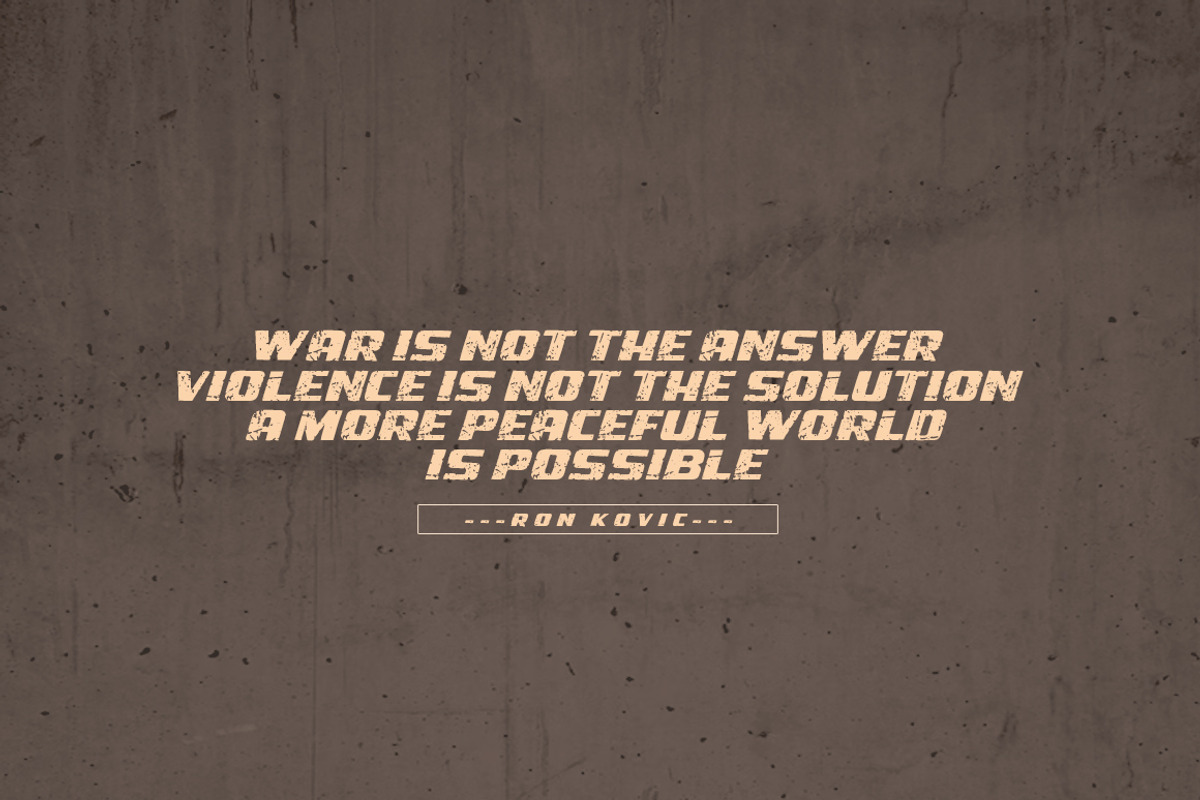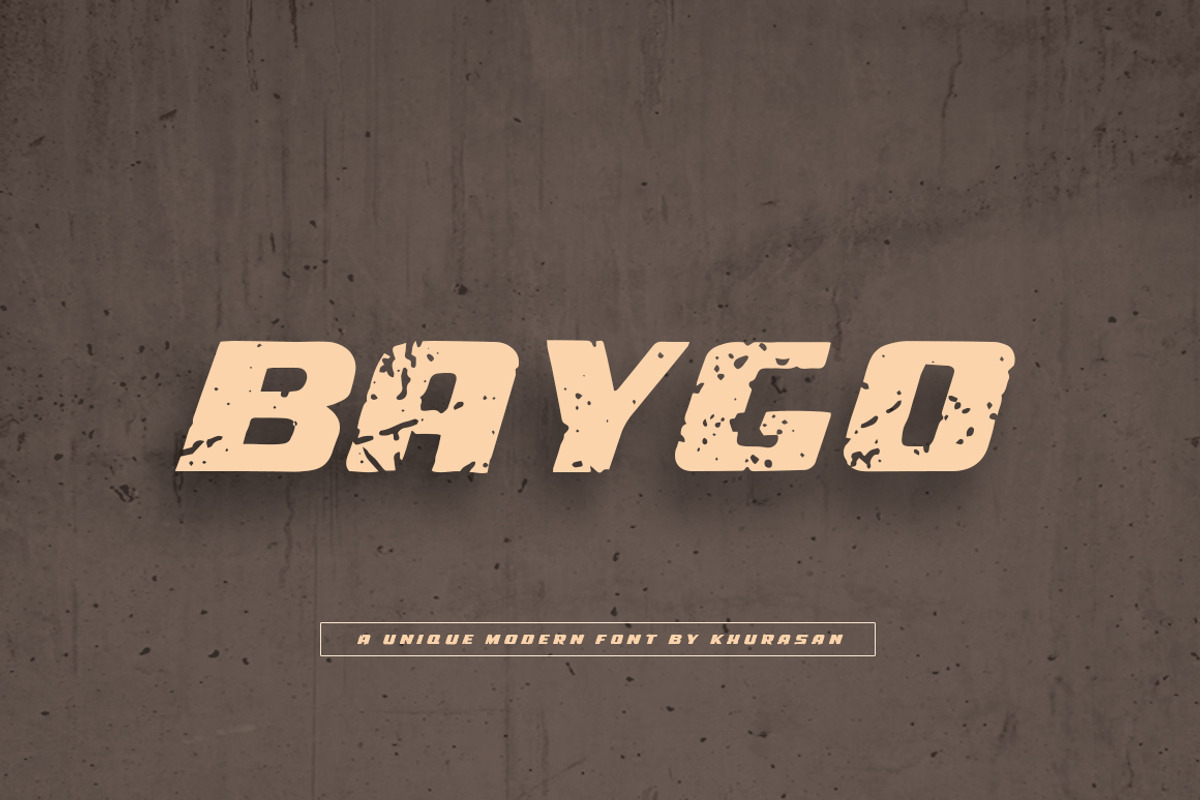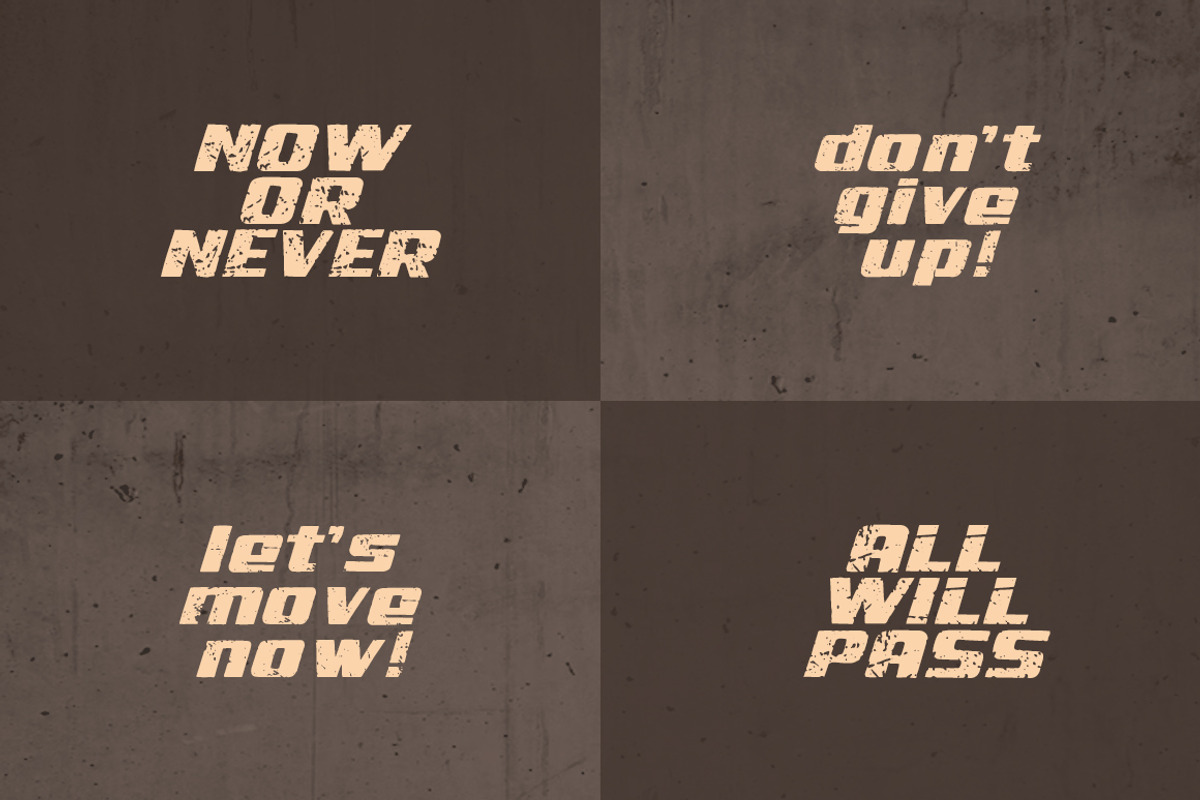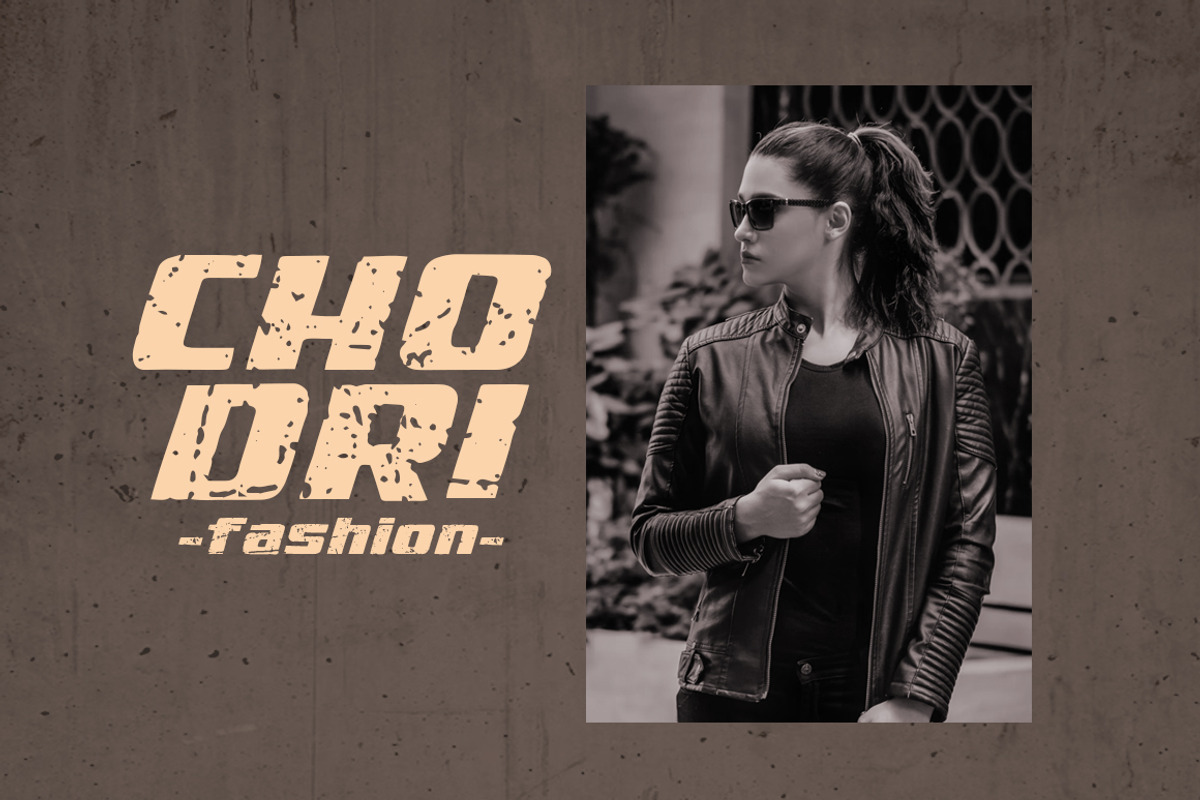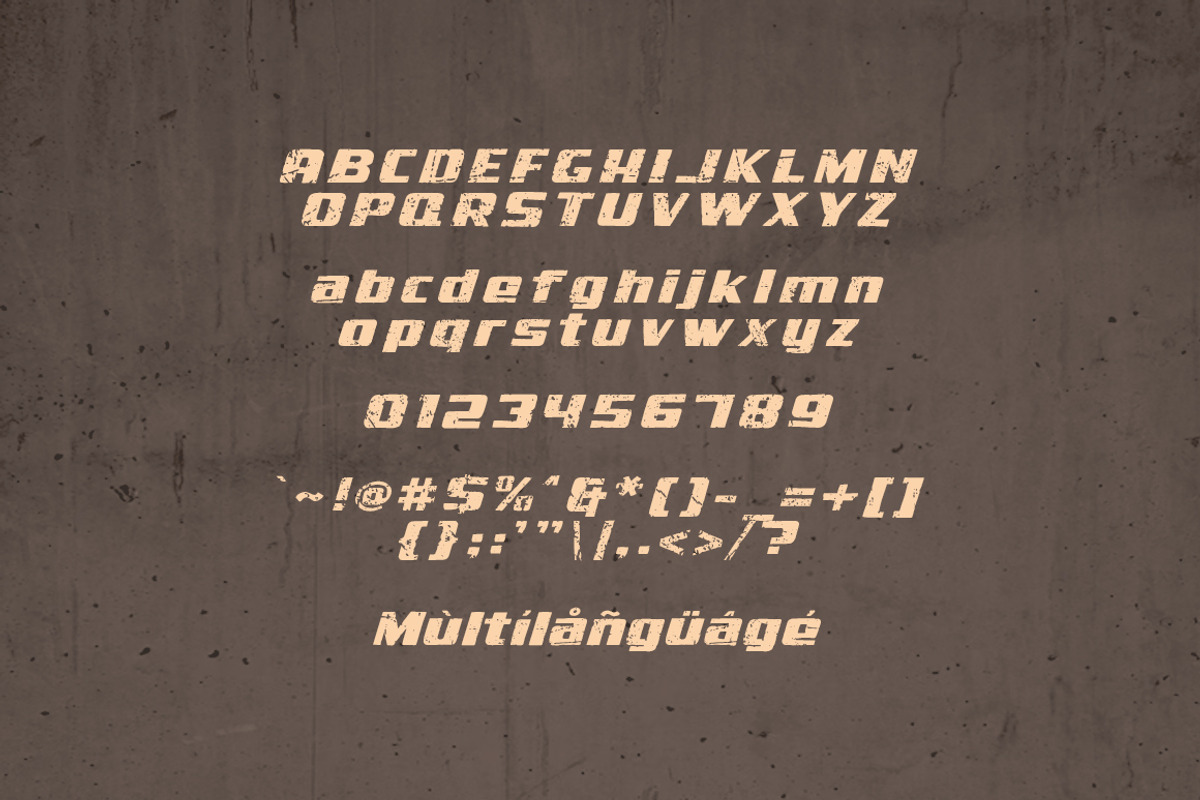
Baygo
The Baygo is a modern rough sans serif font, elegant and modern feel character set. Baygo font as well as multi-lingual support, uppercase, lowercase, numerals, & punctuation.